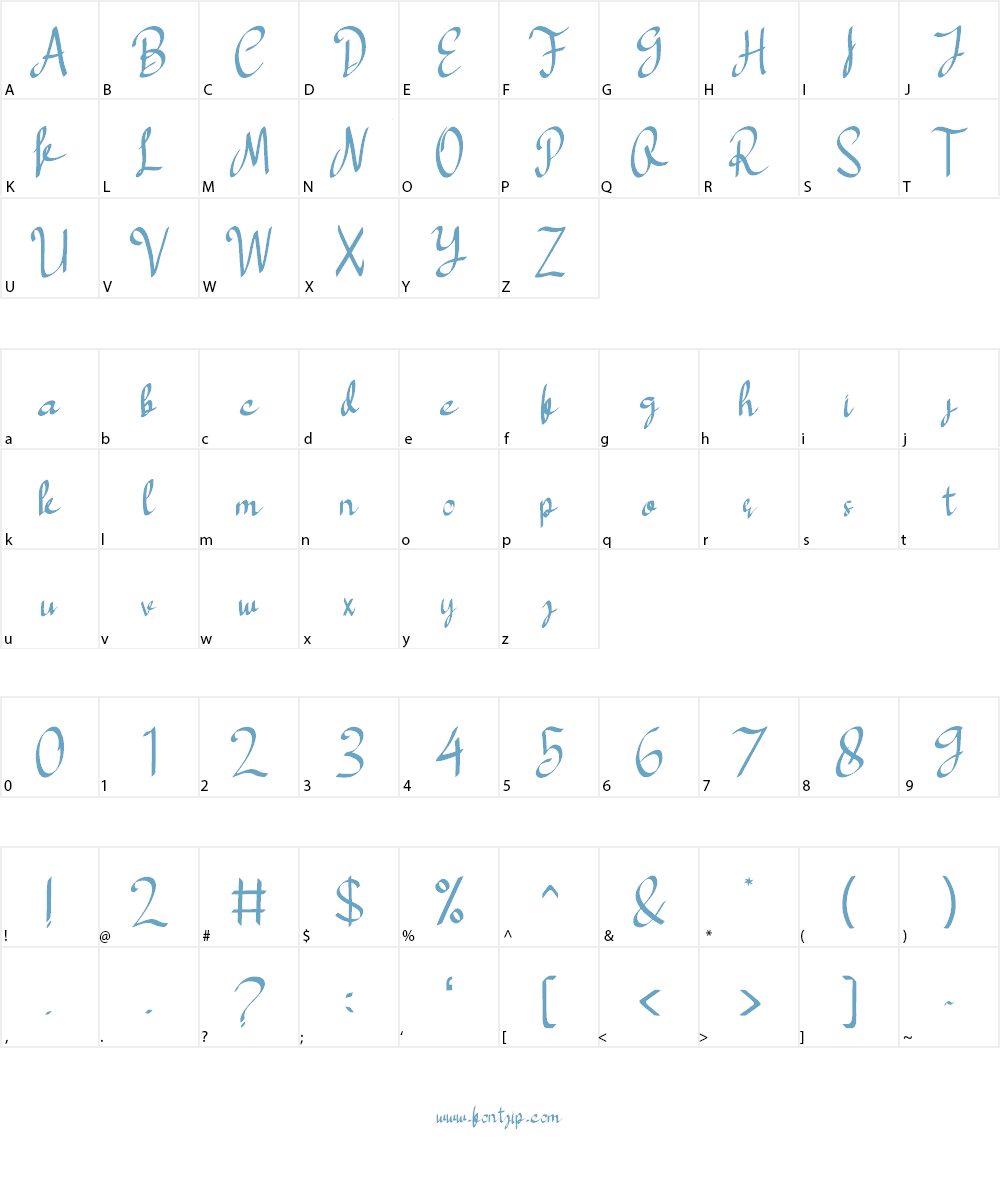
Font Love yolanda - fonts that we make perfectly for your needs, can be applied to the needs of Logo design and various other needs such as invitations, labels, logos, magazines, books, greeting / wedding cards, packaging, fashion, make up, tools write, novel, advertising and many other labels or types according to your needs.